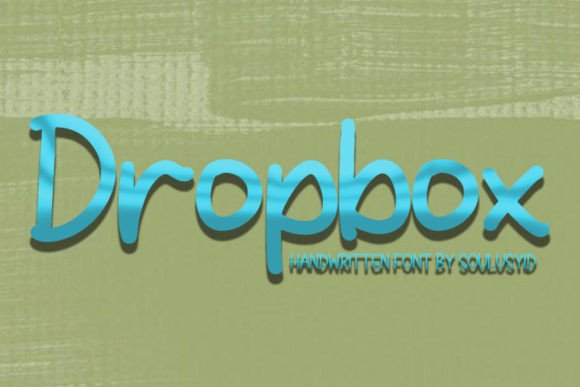
Dropbox is a cute and neat sans serif font. Perfect for card designs, crafts, digital designs, presentations, social media designs, digital planners and many more.